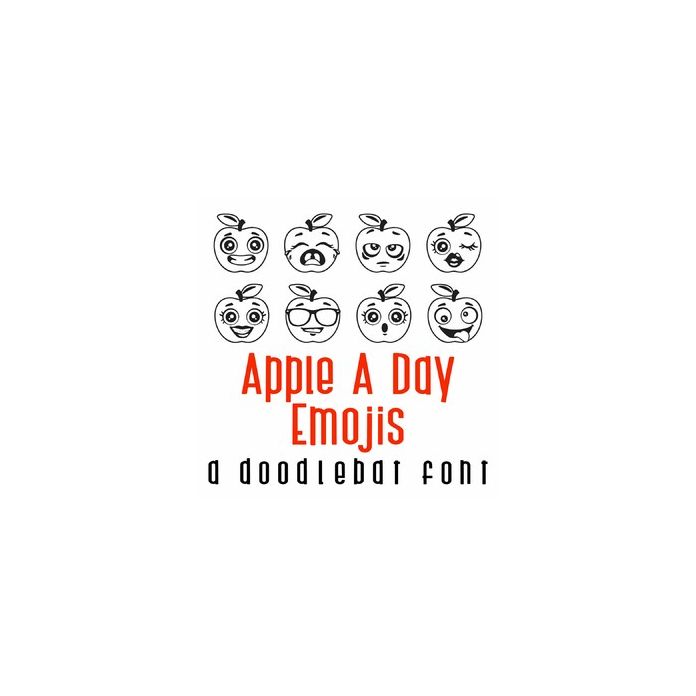
This fun doodlebat features 26 apple emojis, perfect for fall, cards, crafts, gifts, planner stickers, parties, school, classrooms, scrapbook pages and more!